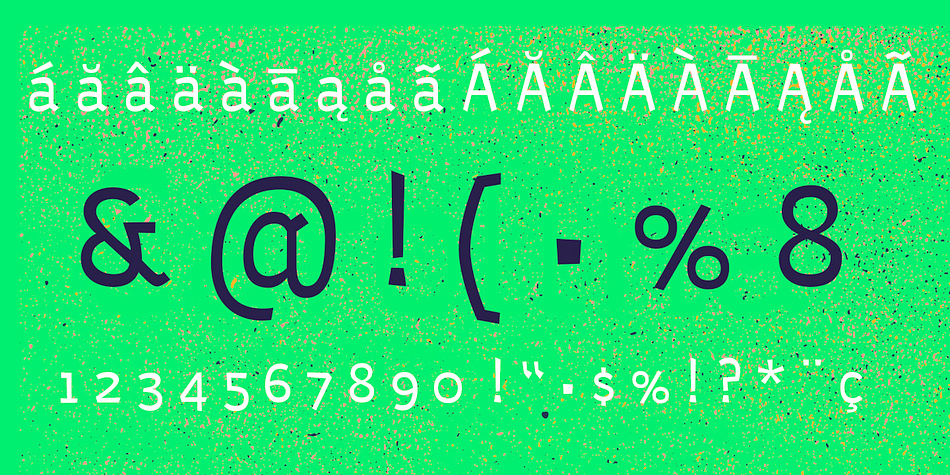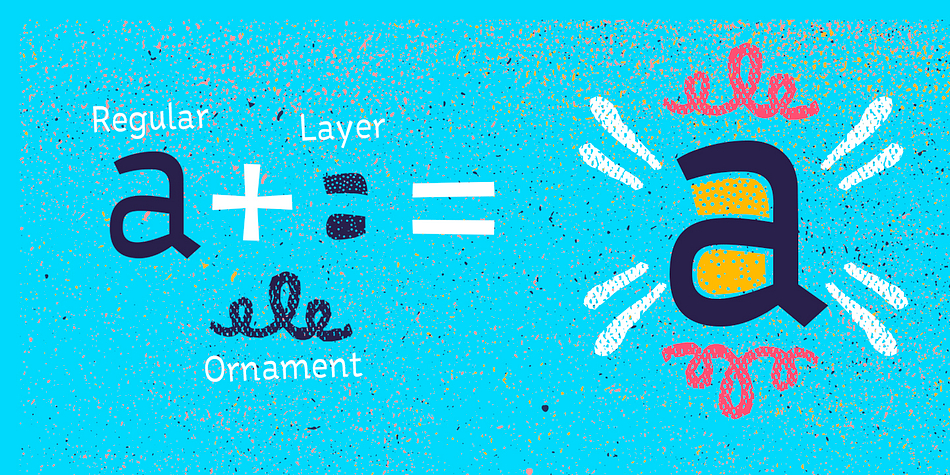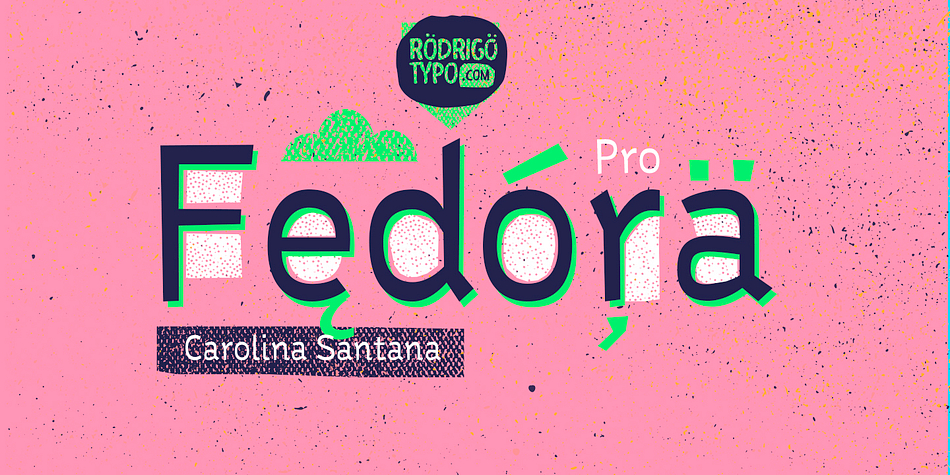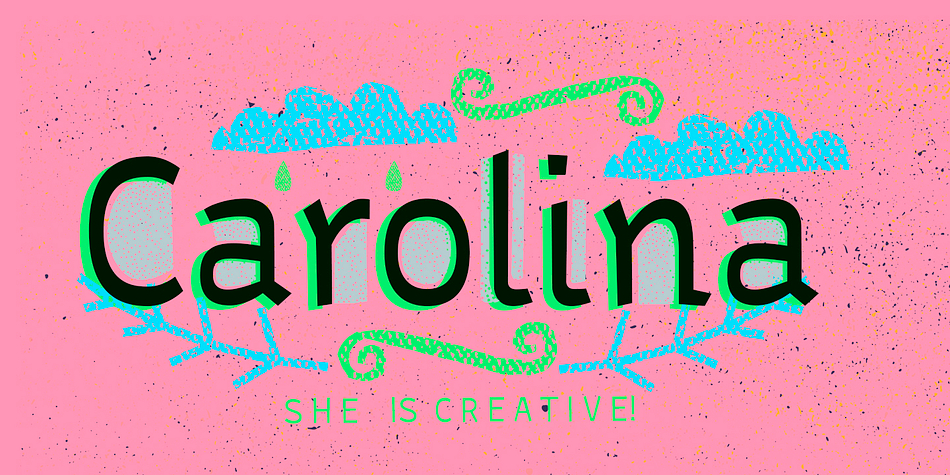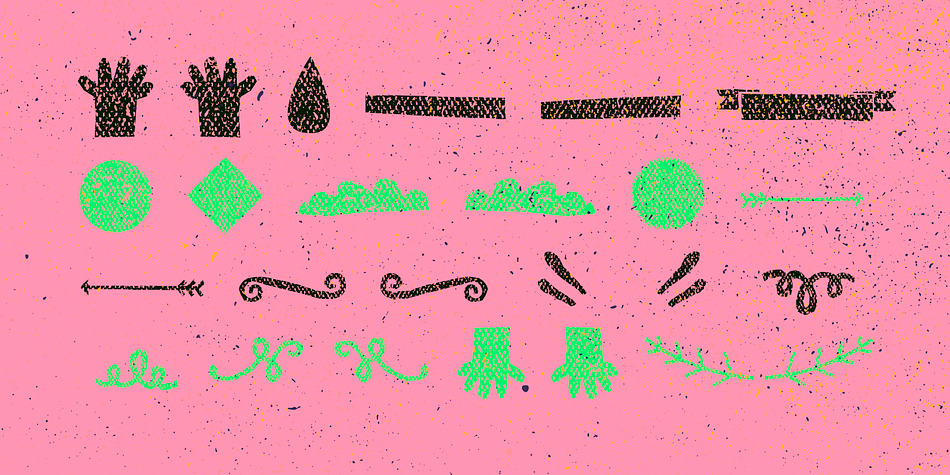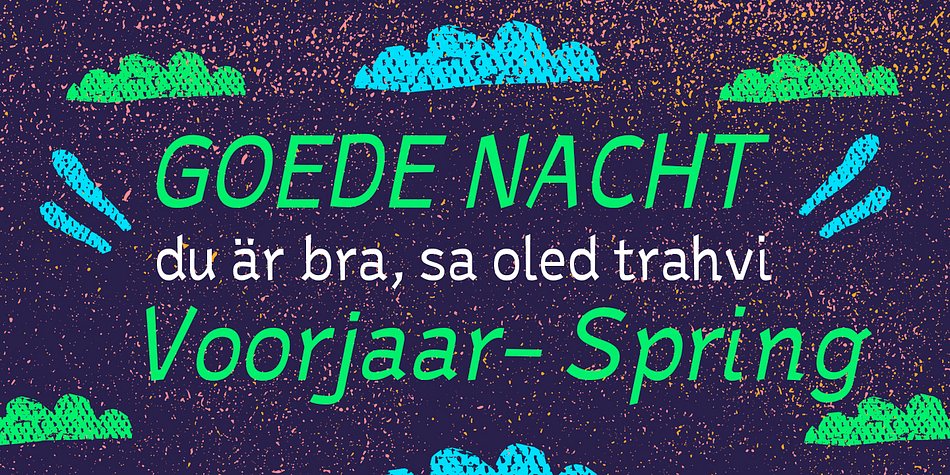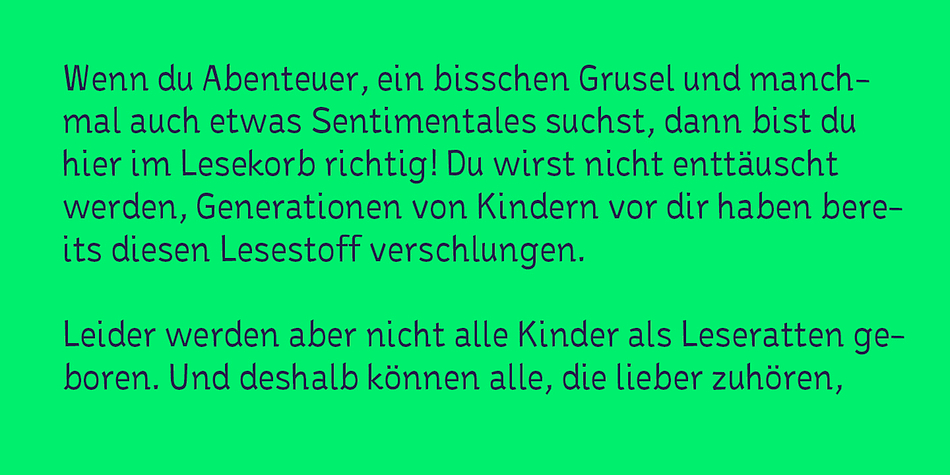
Fedora Pro is a dingbat and sans serif font family. This typeface has four styles and was published by Rodrigo Typo.
San serif typography, playing with alternatives as a layer and another set of ornaments to make your titles something very nice and very entertaining also can be combined, created by Carolina Santana.